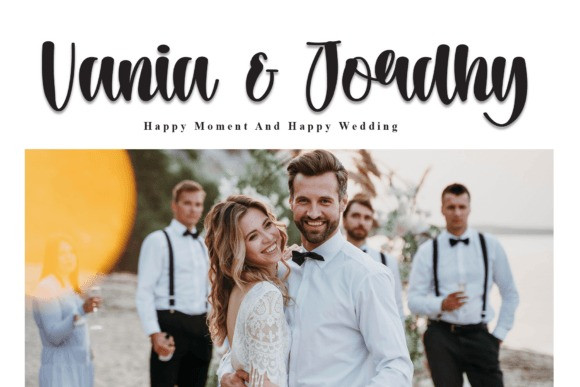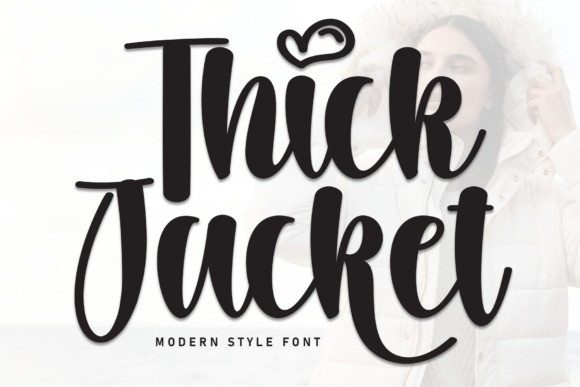
Thick Jacket Font
Thick Jacket is a bold handwritten font with a cozy, casual style. Its thick letters give a warm and friendly feel, making it great for headlines, invitations, and anything that needs a personal touch!